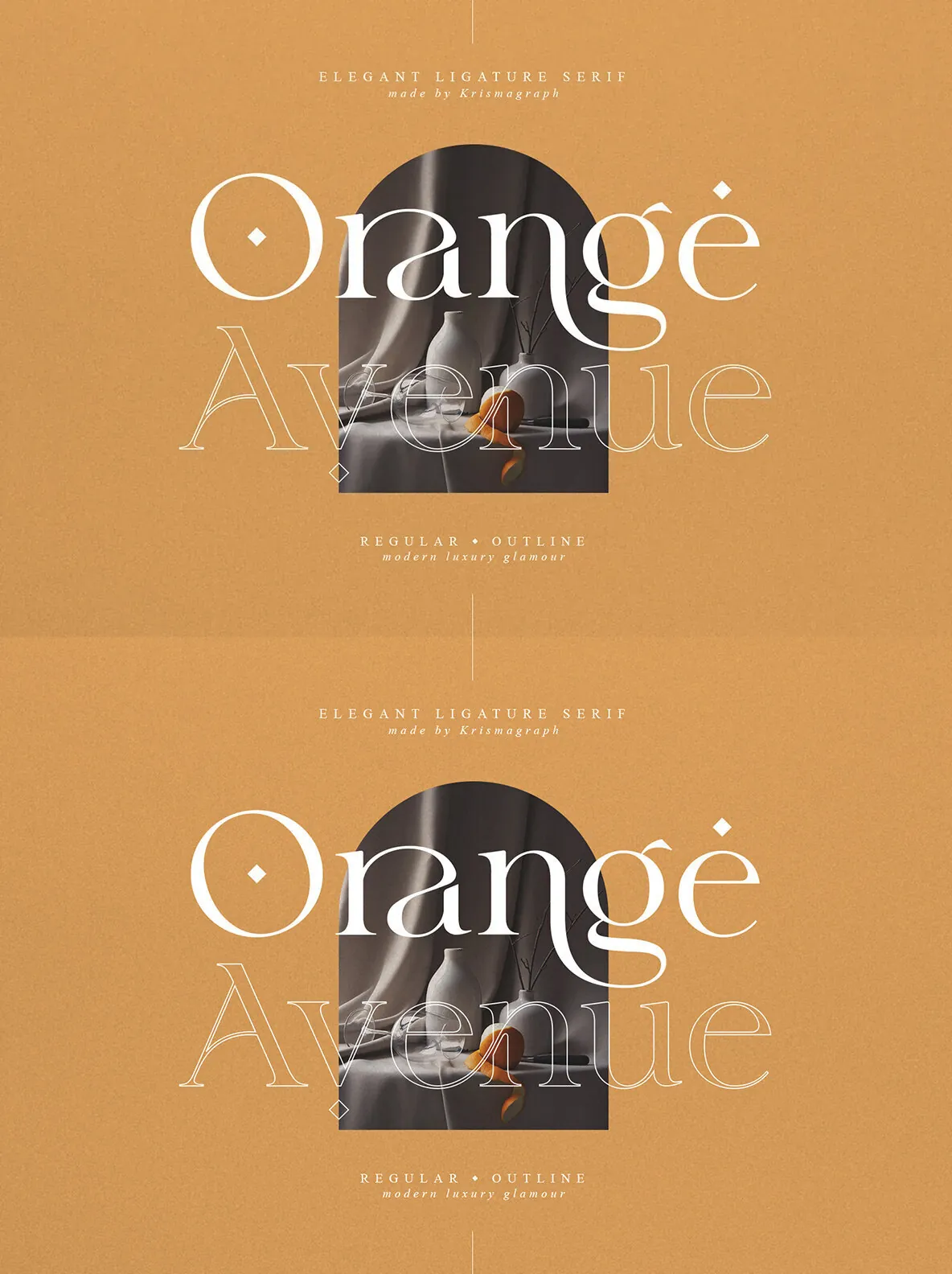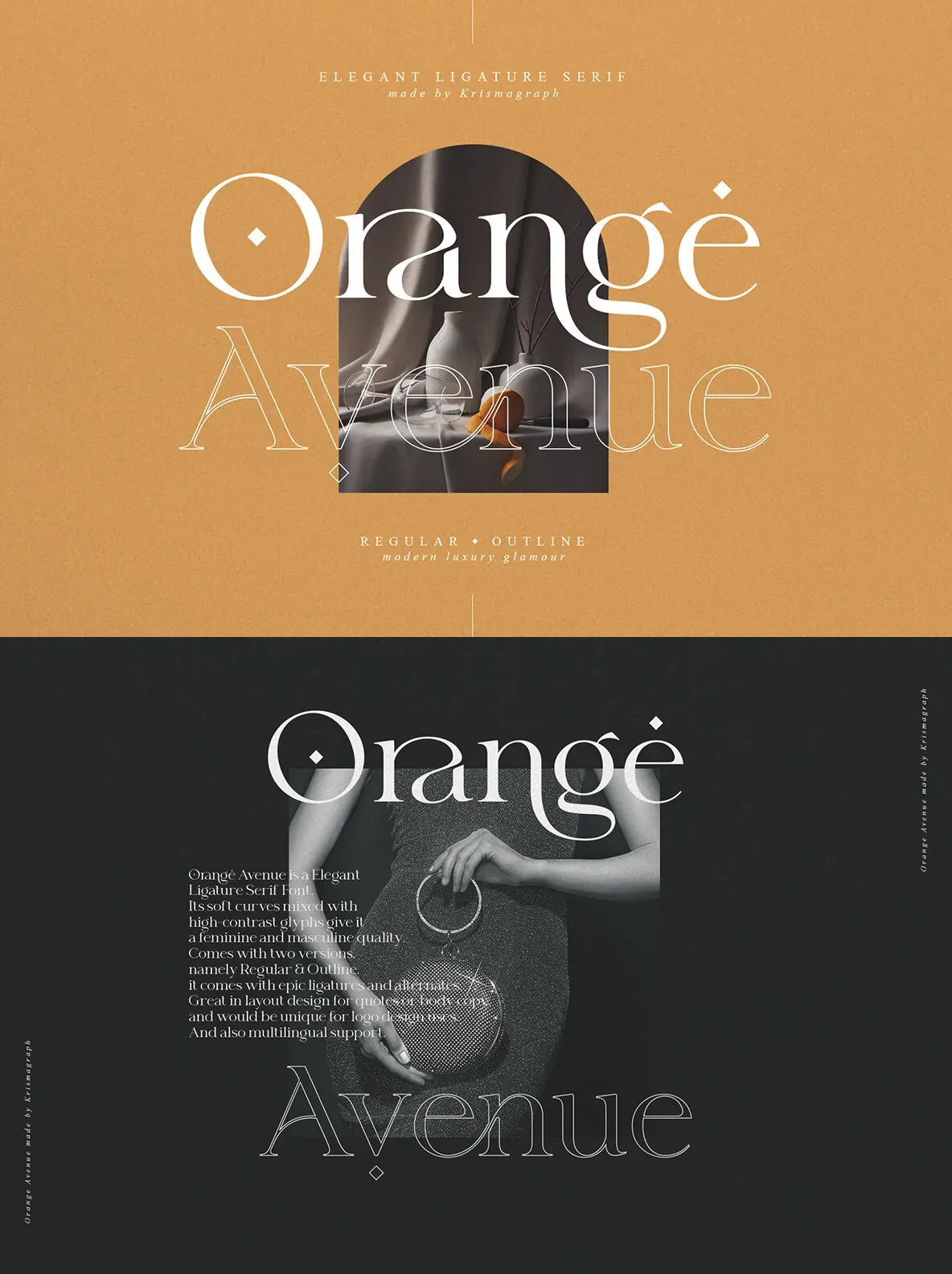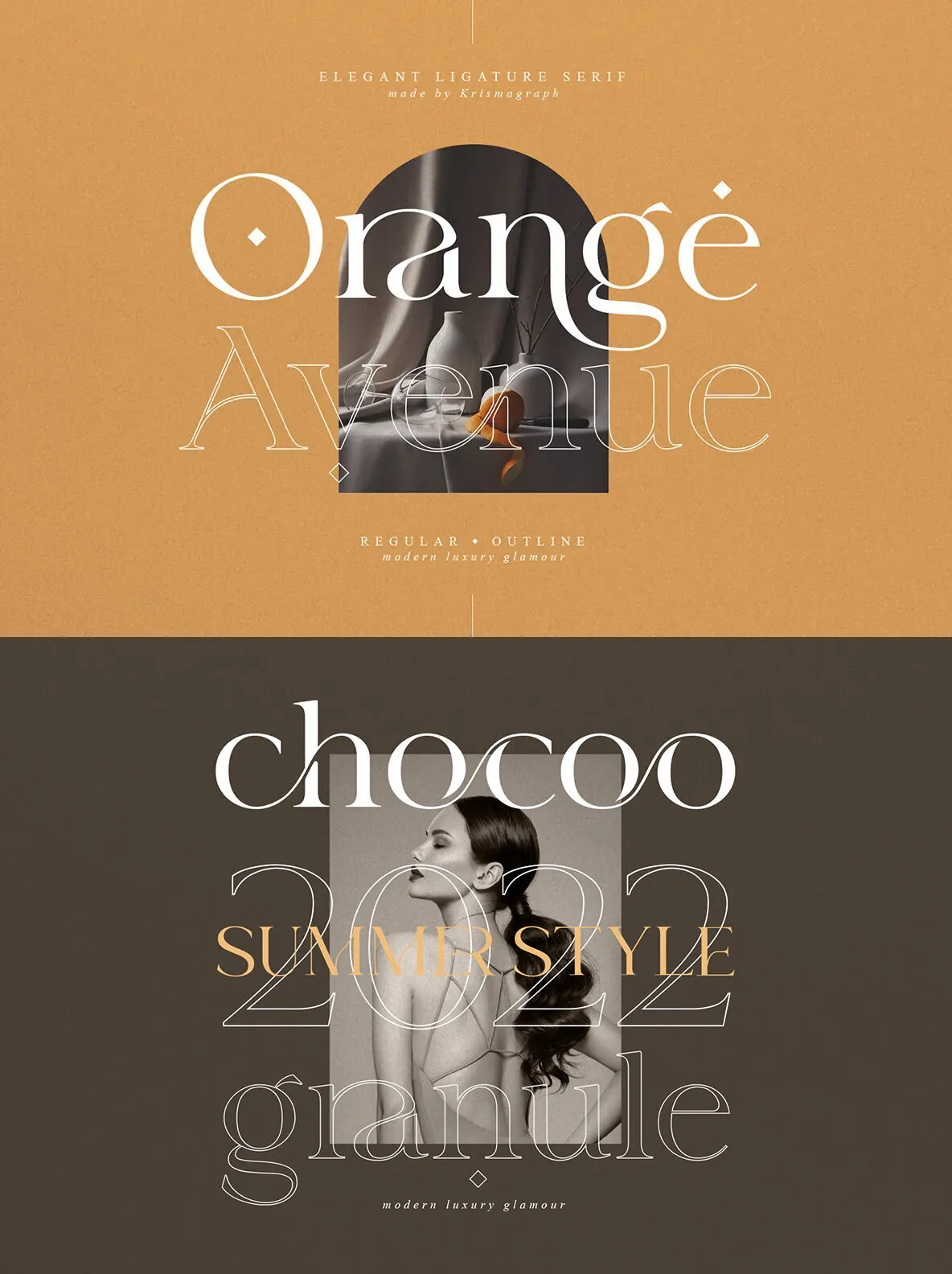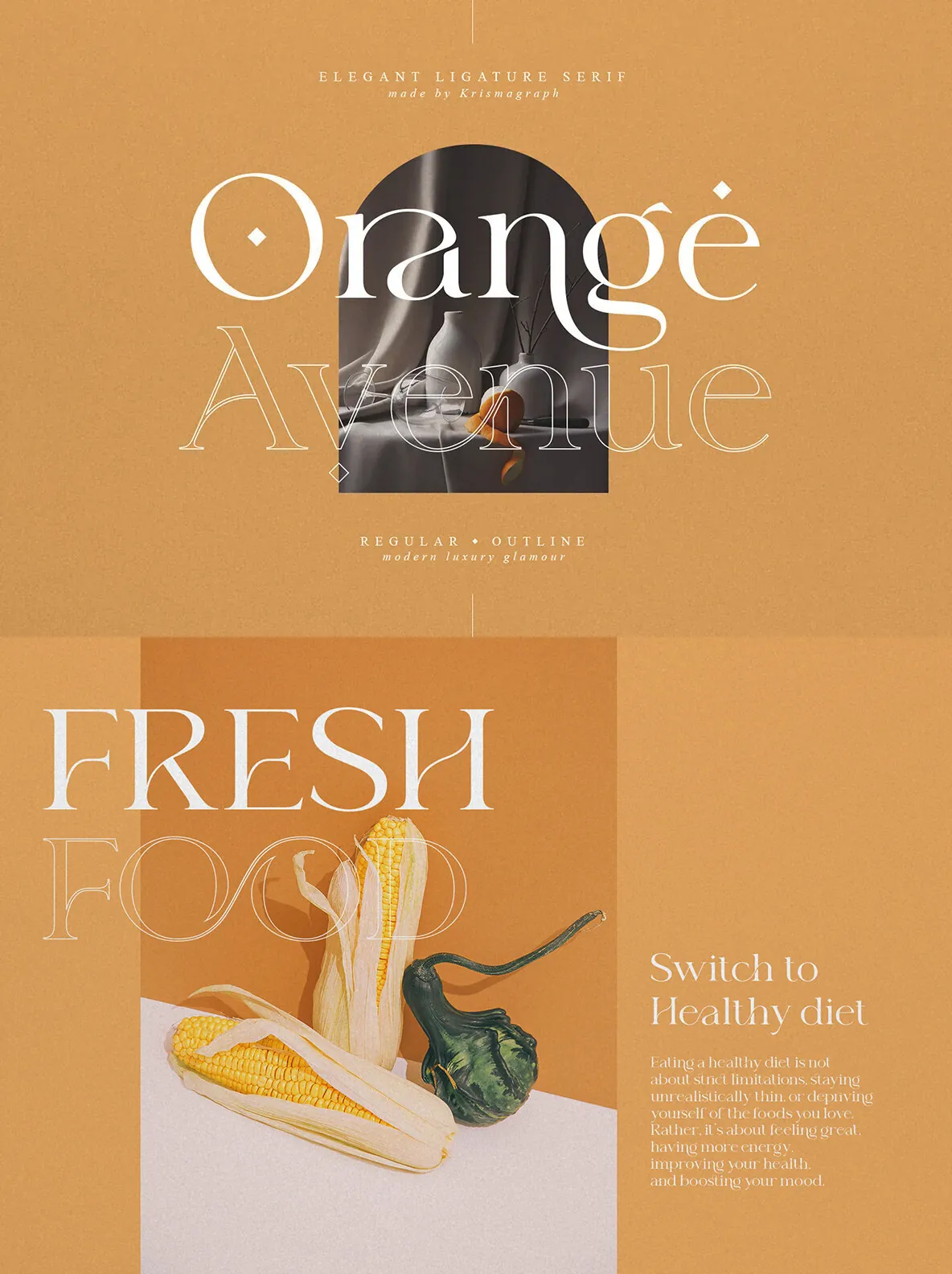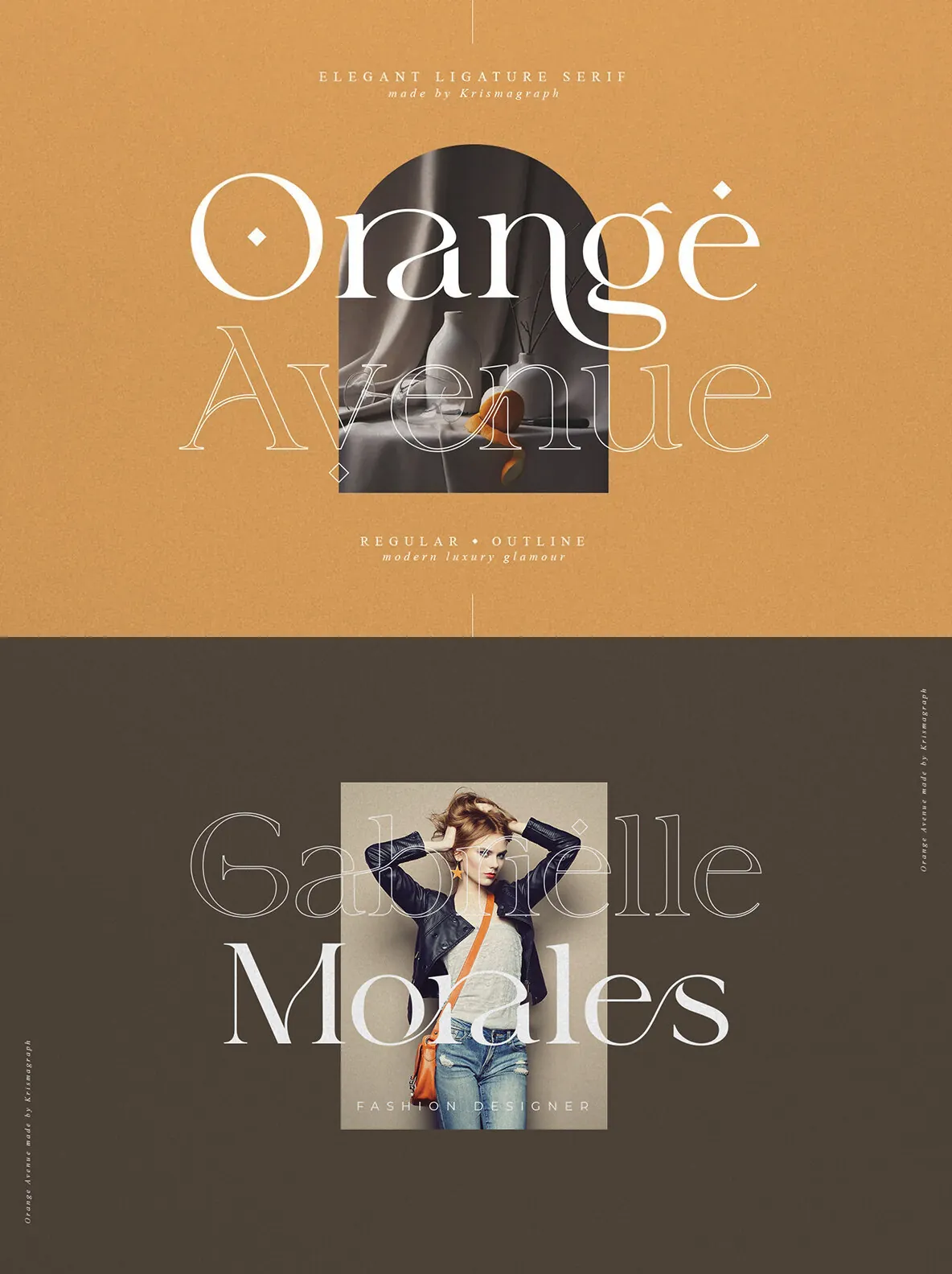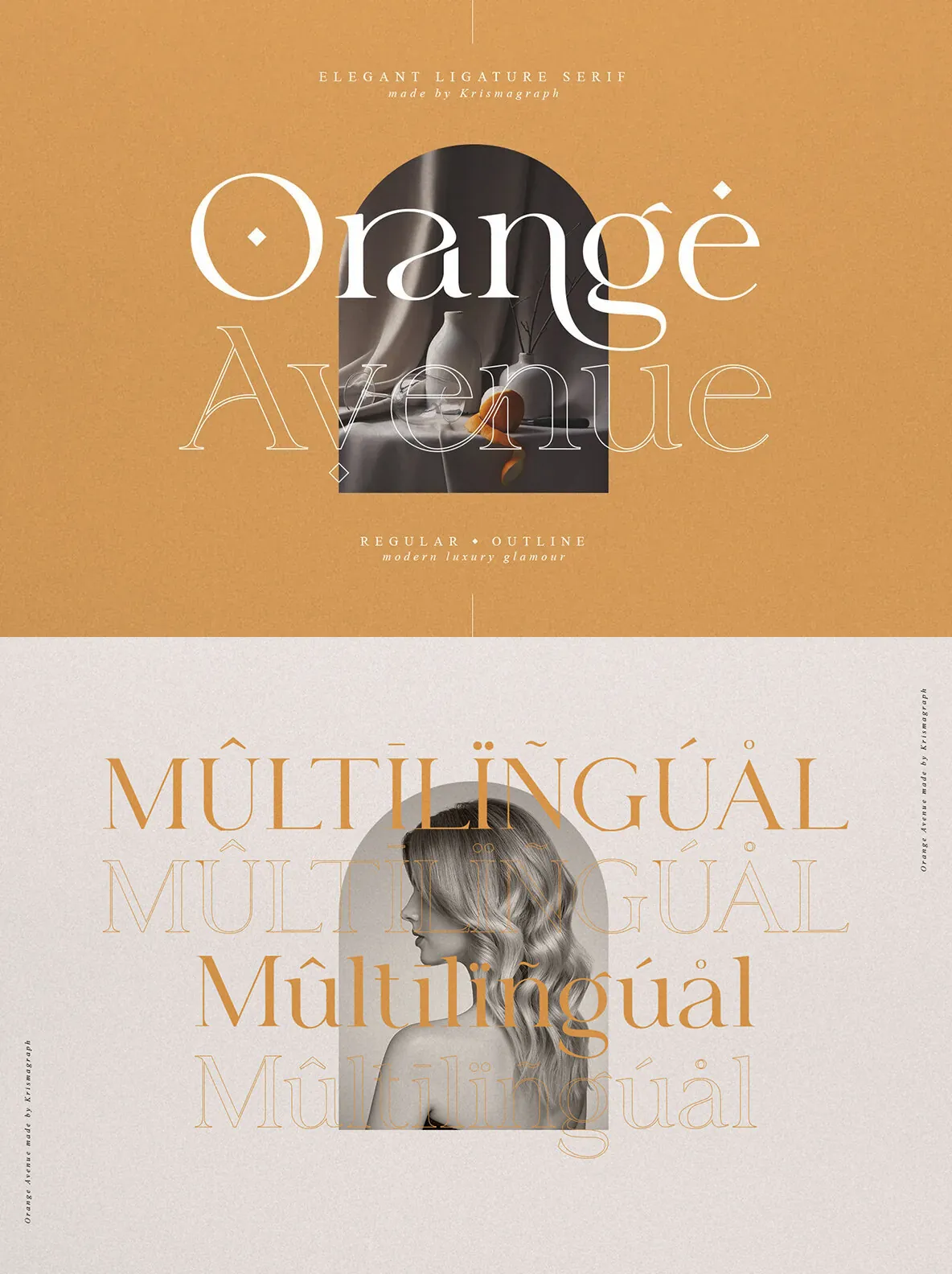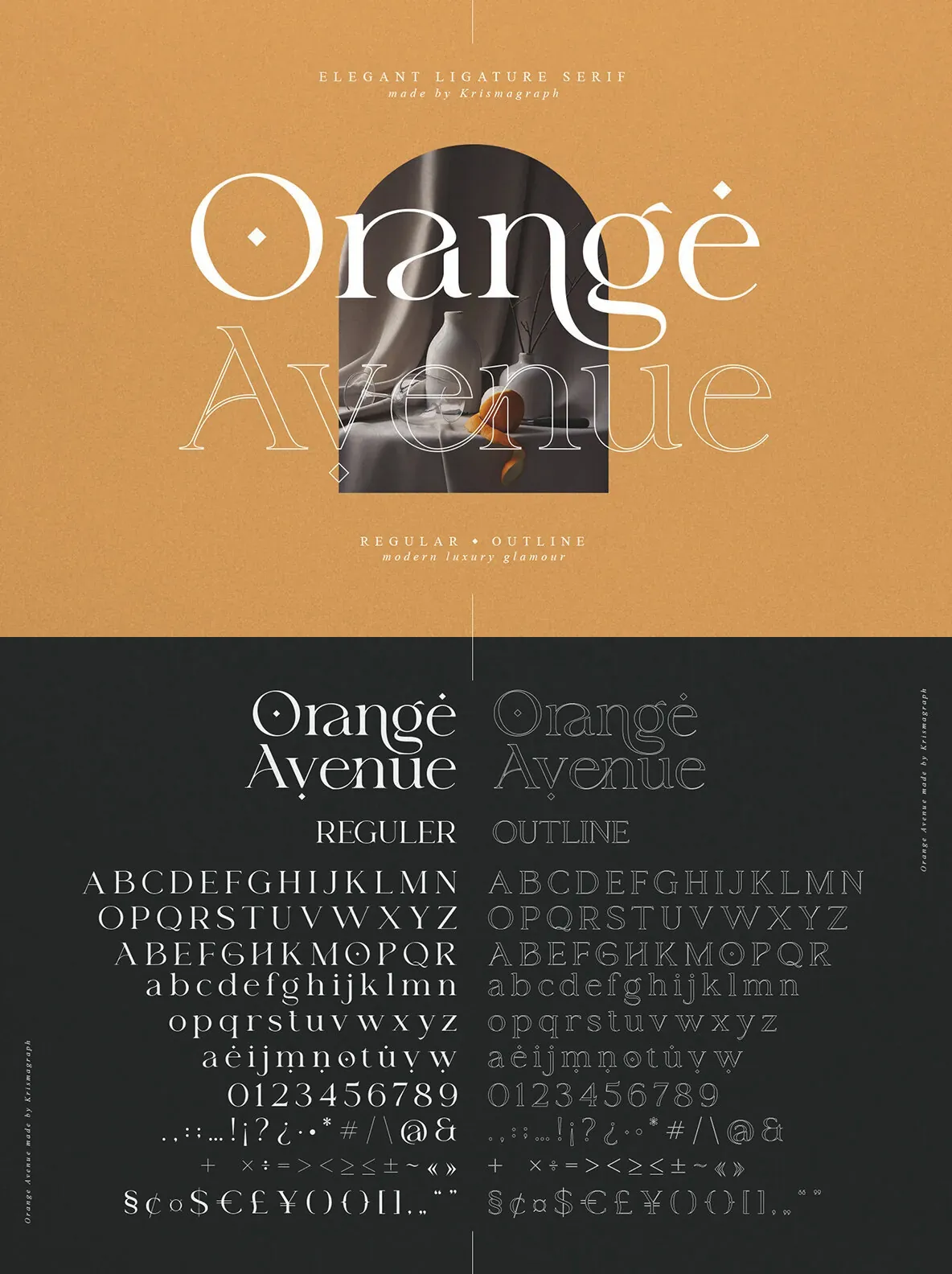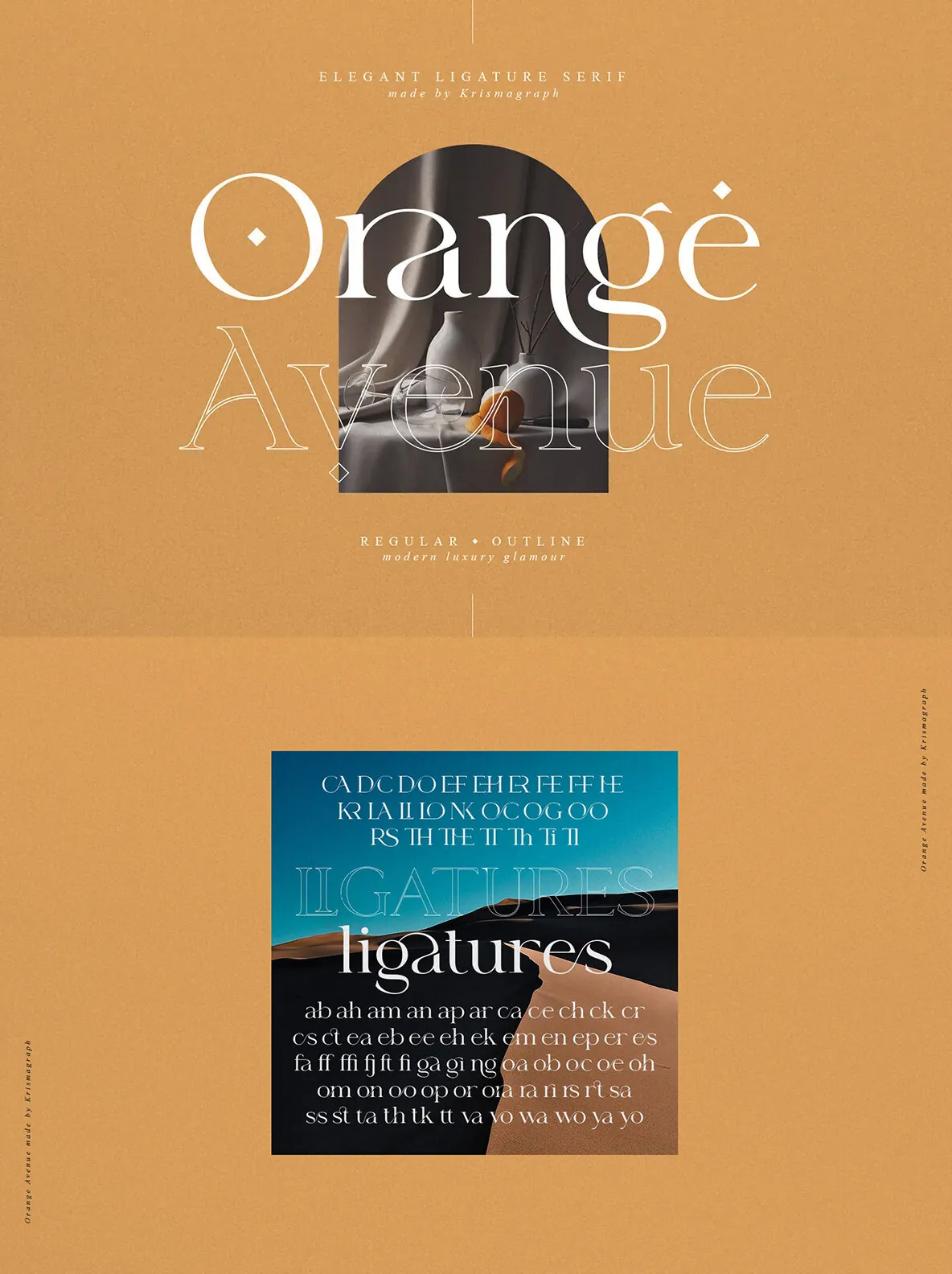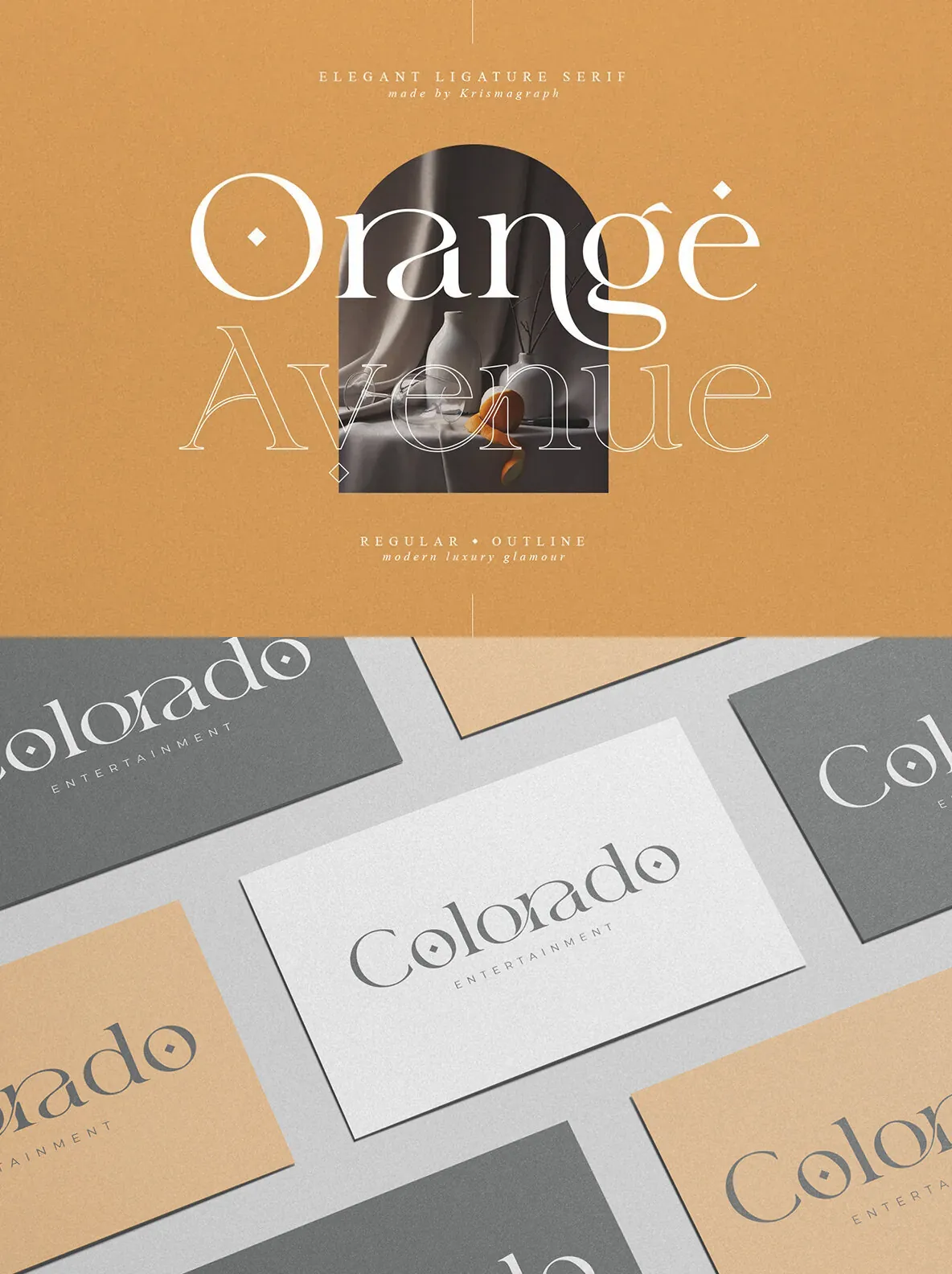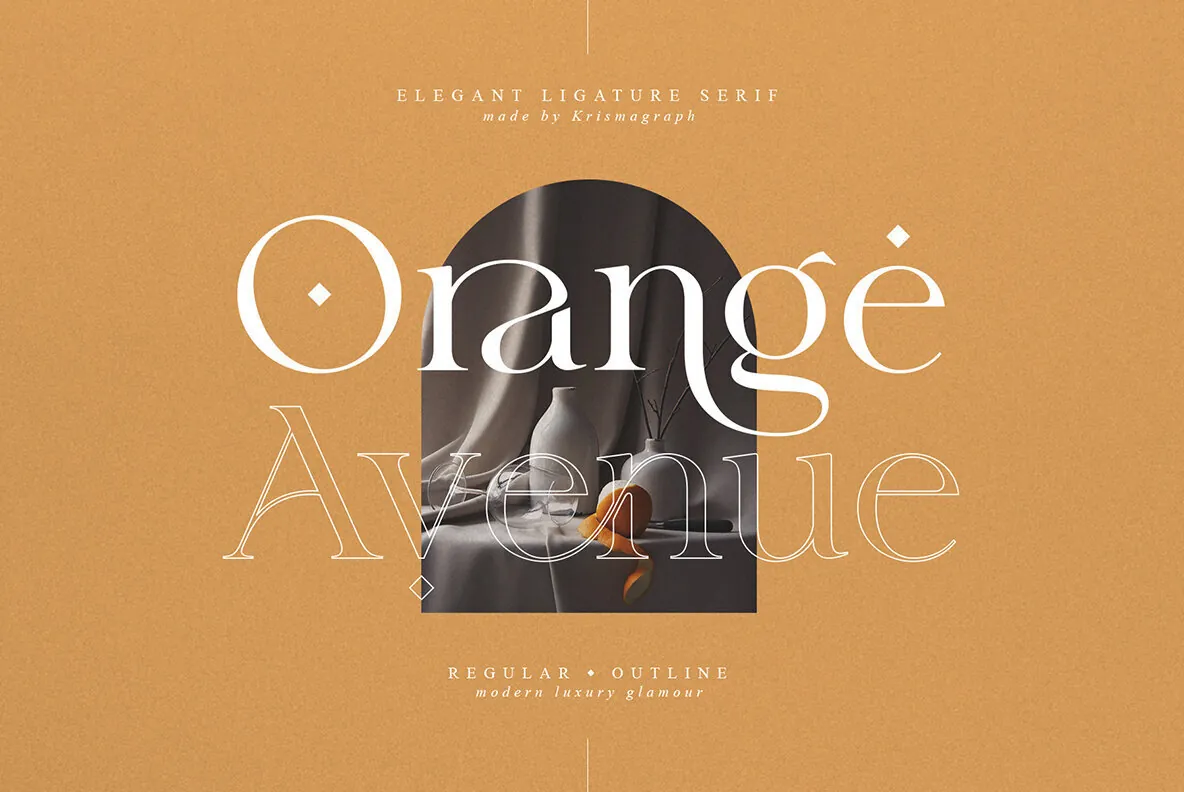
Orange Avenue is a font that has both feminine and masculine qualities. It’s perfect for quotes or body copy, as it can be used in layout designs, headings, brand logos and more.